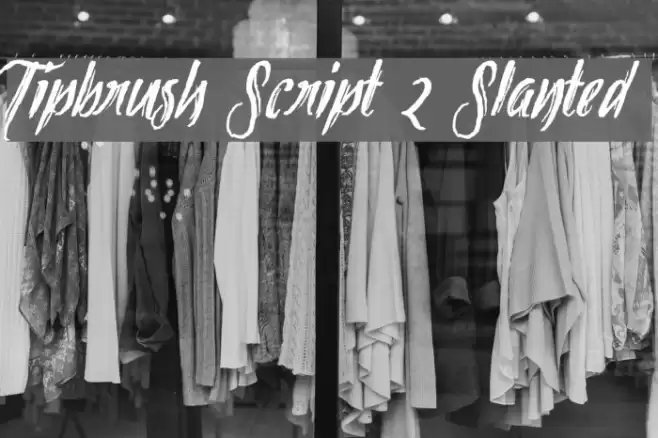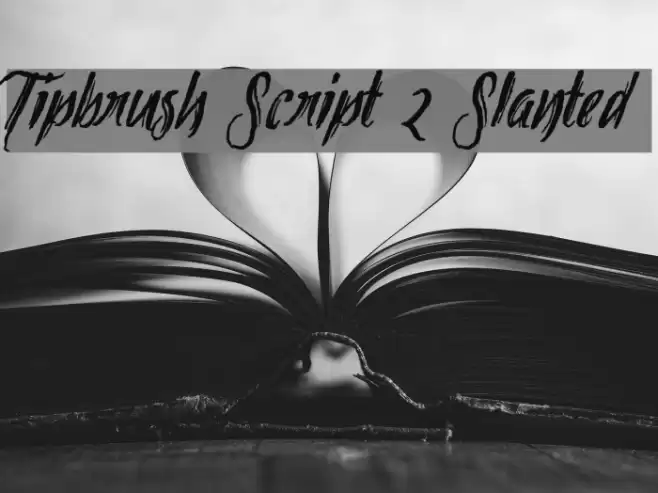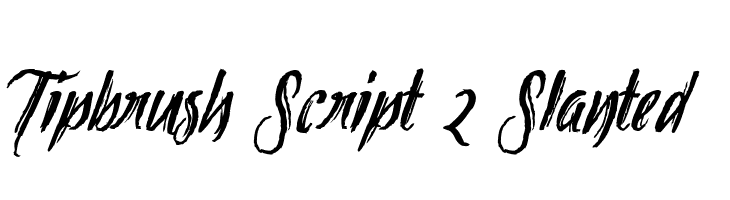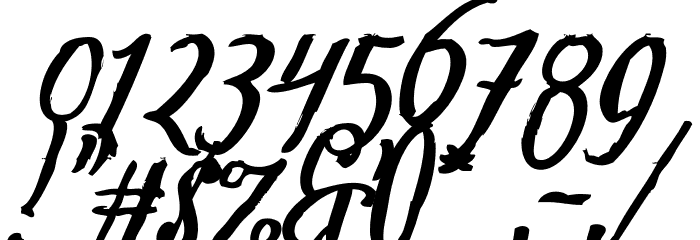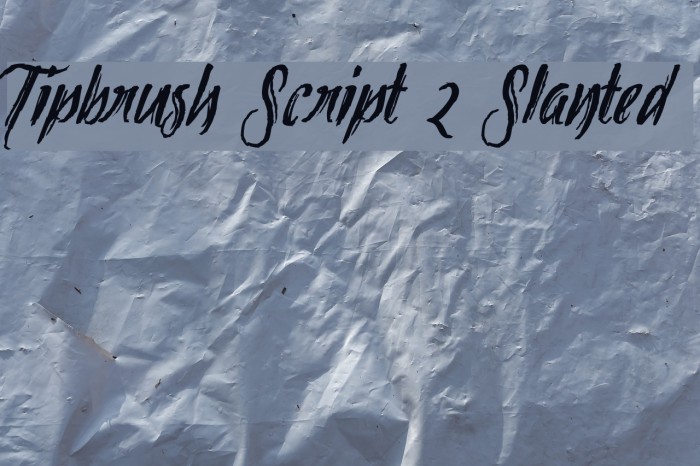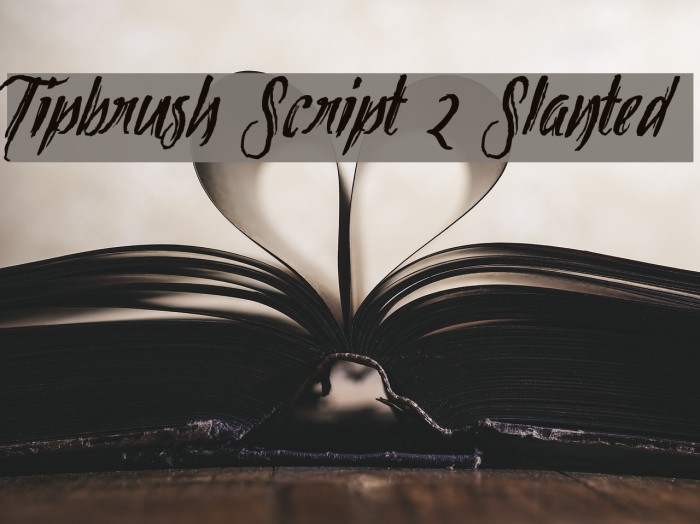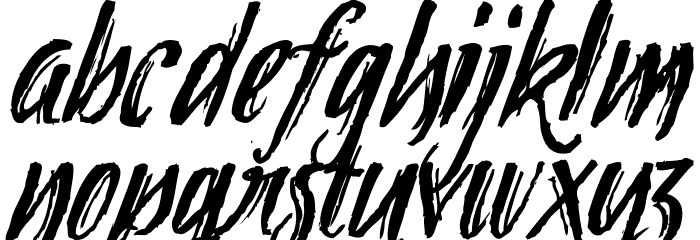
Tipbrush Script 2 Slanted Font
Tipbrush Script 2 Slanted Description
This font exudes a dynamic and energetic style, characterized by its bold, brush-like strokes that convey a sense of movement and fluidity. The letters are slanted, giving an impression of speed and urgency, while maintaining a clear and artistic form. The uppercase and lowercase letters are crafted with a consistent brush script style, featuring sharp edges and varying stroke widths that add a dramatic flair. The numerals and special characters follow the same expressive design, ensuring a cohesive look across all text elements. This font is ideal for projects that require a bold statement or a creative touch, such as branding, posters, or artistic designs.
A dynamic brush script font with bold, slanted strokes and artistic flair from Uncategorized fonts.
- Proposed Projects: Ideal for branding, posters, artistic designs, and any project needing a bold, creative touch.
- Character Spacing: Tight
- Use Case: Logos, Headlines, Artistic Designs